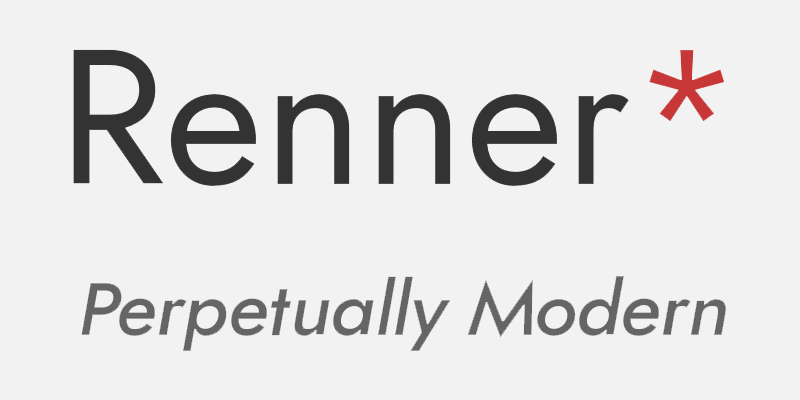
Get the complete and up-to-date version of this font off the website - https://indestructible-type.github.io/Renner.html Downloading it here will not include all of the weights! Renner* is a font for the digital age. It's based off of the work of Paul Renner, the designer of Futura. Renner* is an origonal font that aims to keep the attitude of Futura rather than the exact design. Futura was designed to be functional in its day and in that spirit, Renner* aims to be as functional as possible in the digital era. For that reason it deviates from the exact designs of Paul Renner, favoring, for example, a larger x-height. It also includes features, many of which would not be possible in the era of Paul Renner. Renner* has 9 weights, ranging from Hairline to Black. It can support many languages, includes stylistic alternatives, and both tabular and proportional numbers. Please consider paying for Renner*! |